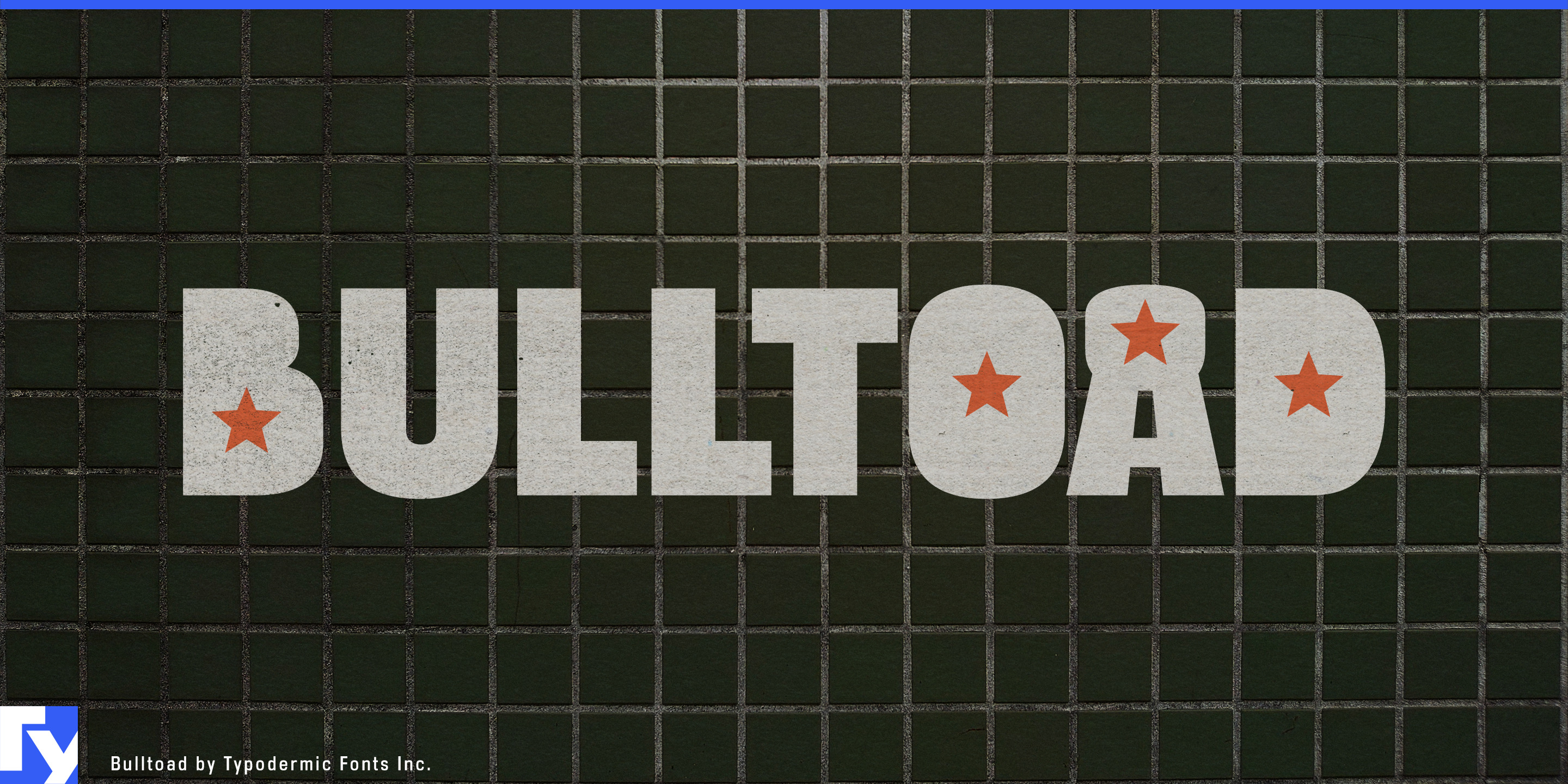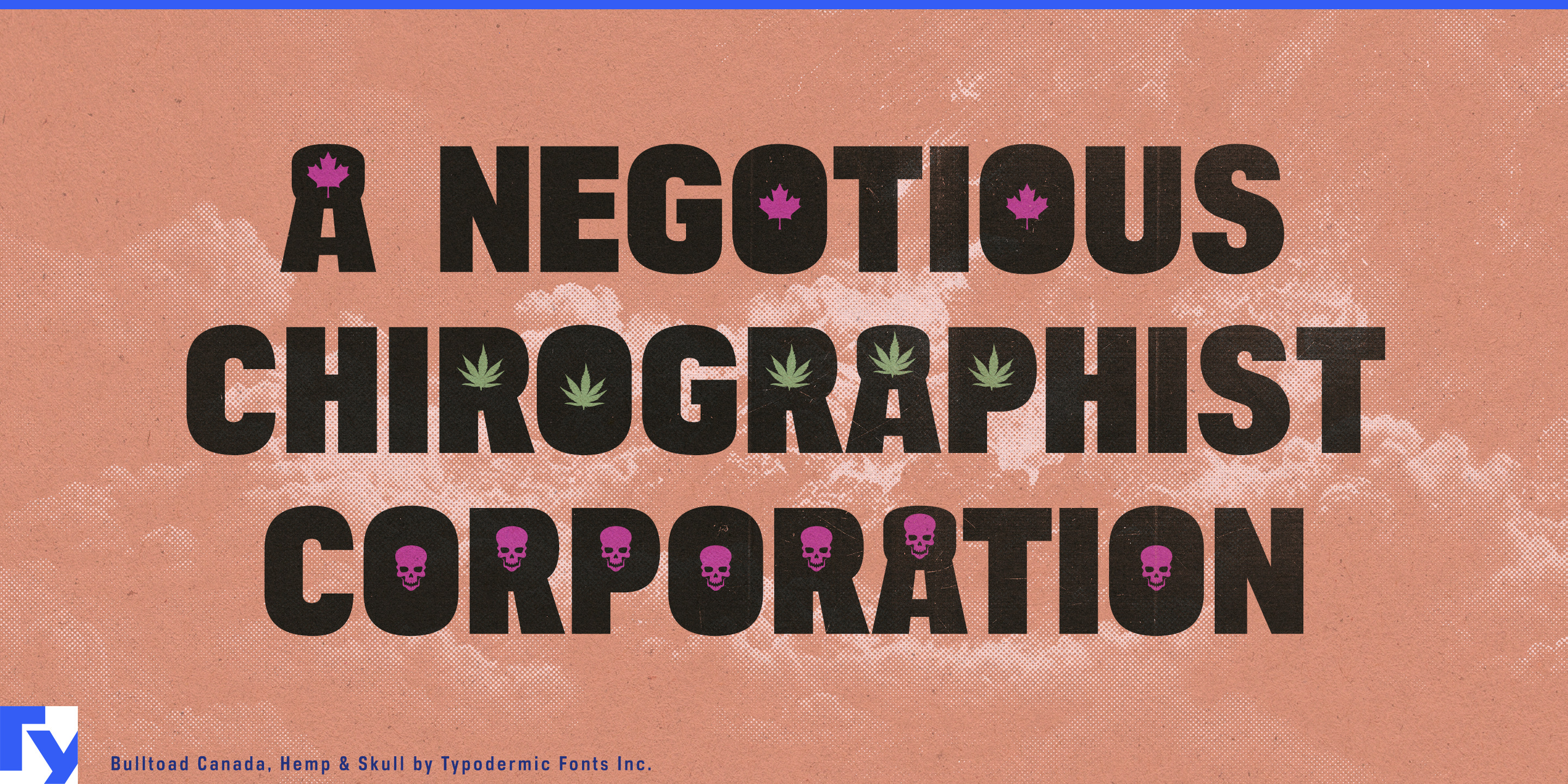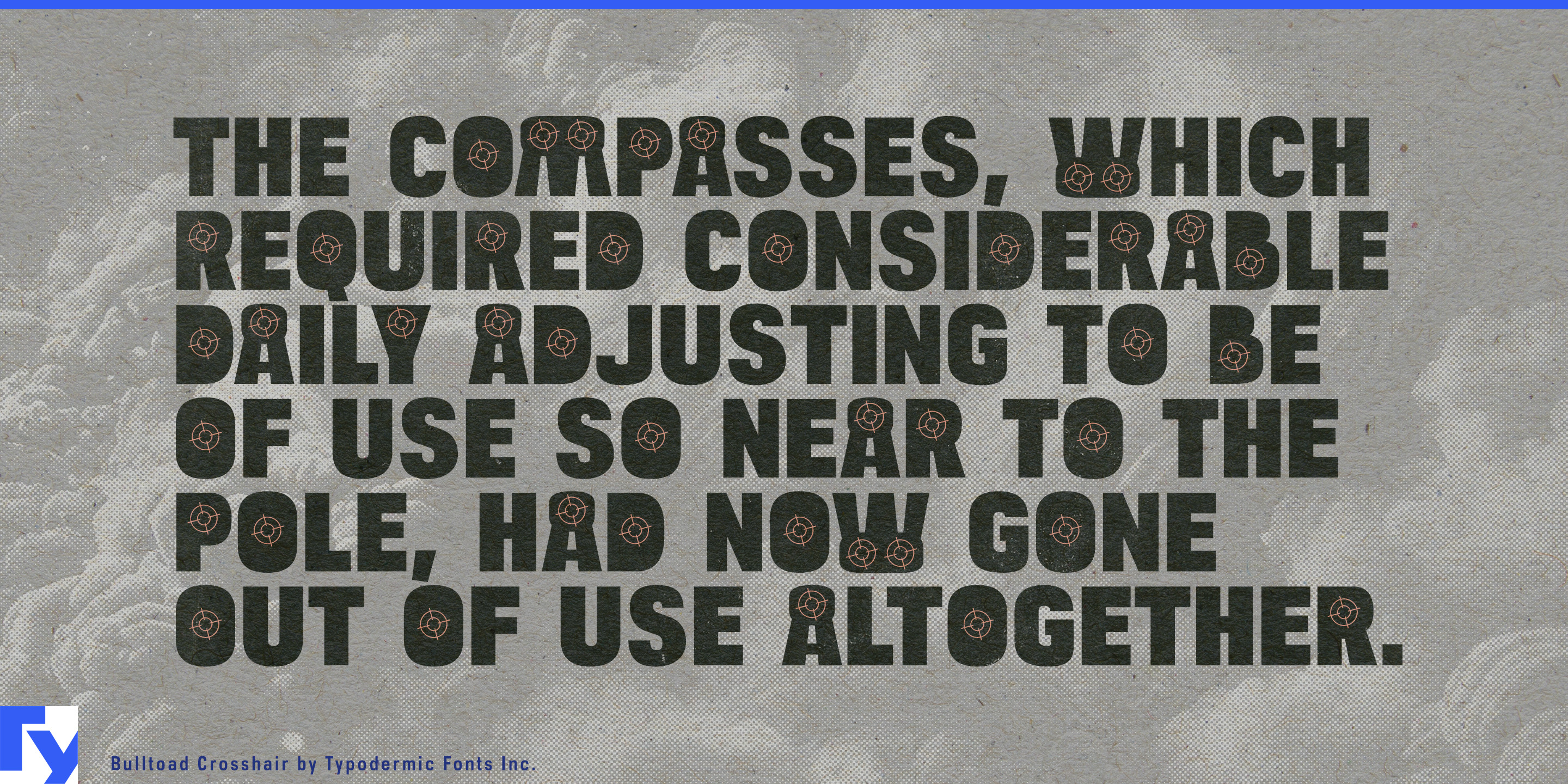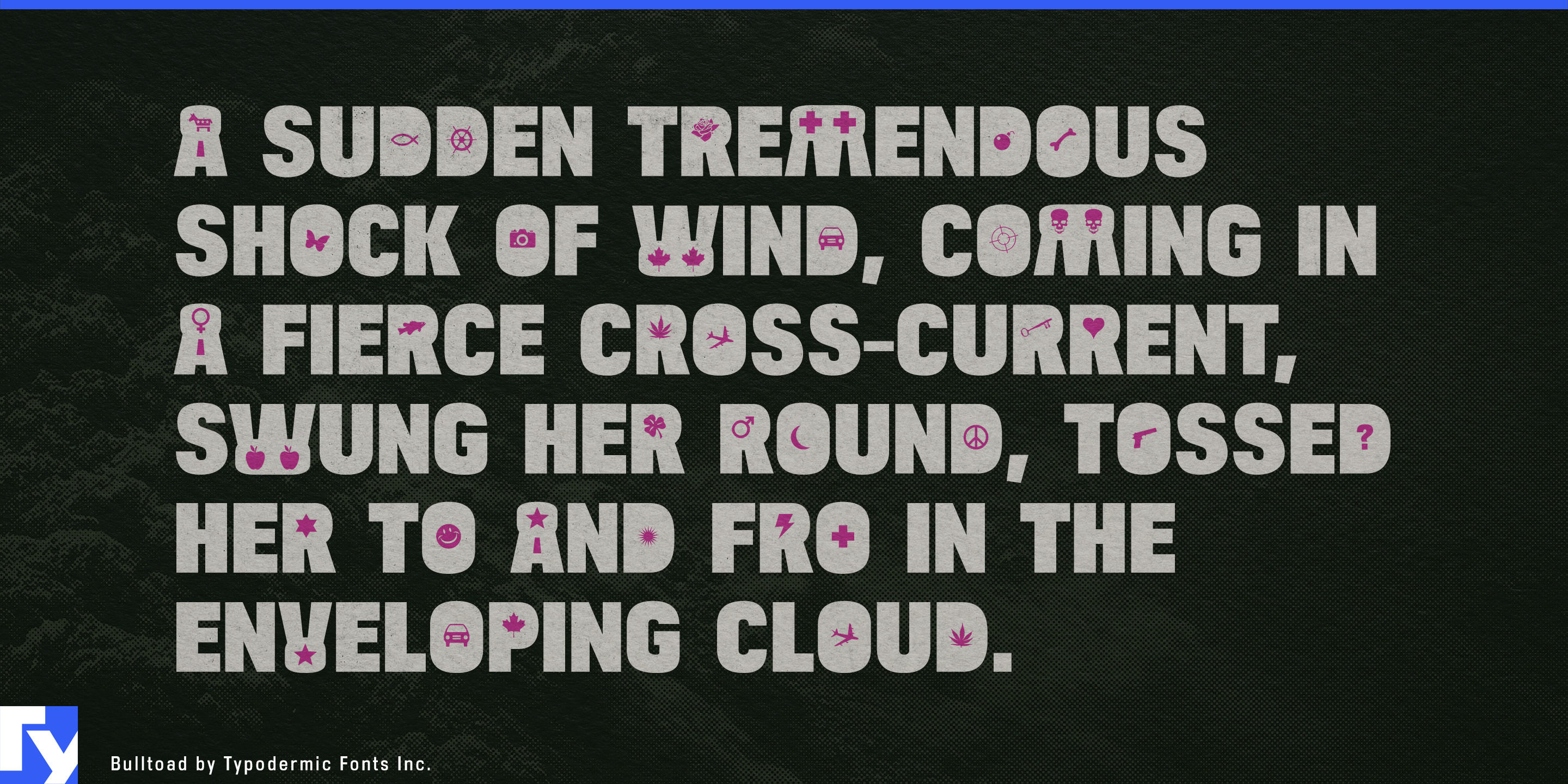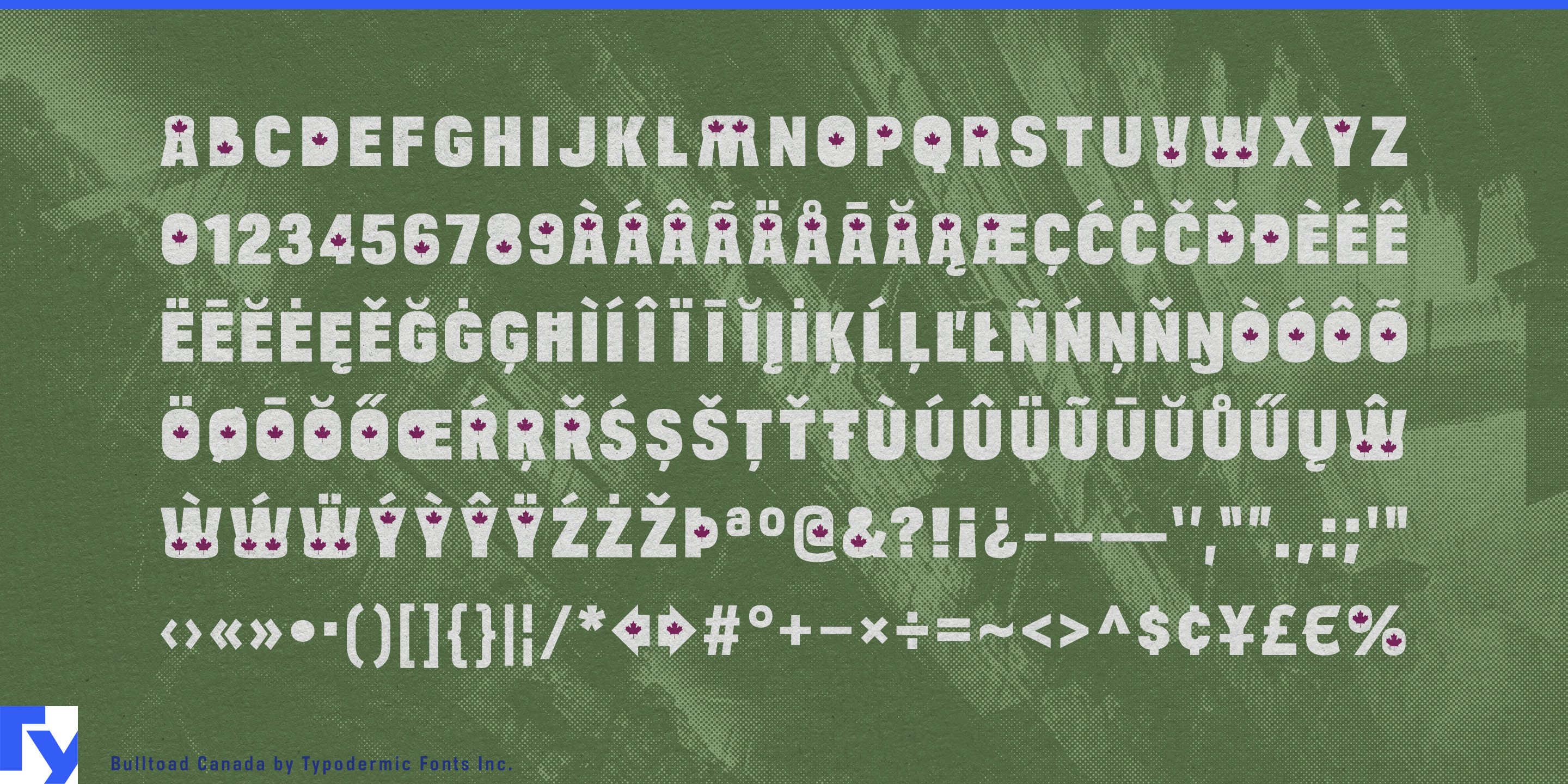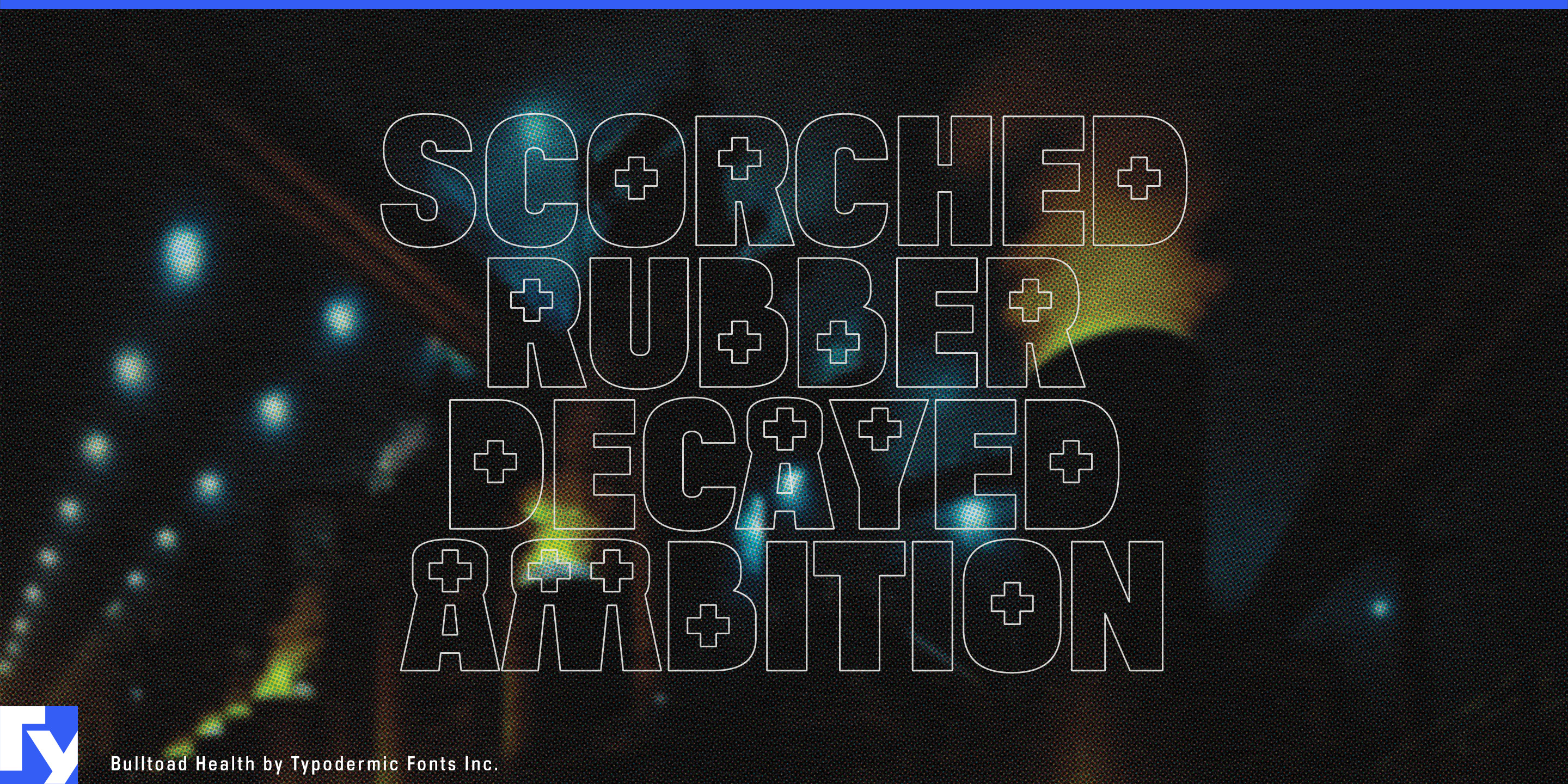
Bulltoad
Editorial systems often have to distinguish dozens of subjects without fragmenting into dozens of visual identities. One article is about transportation, the next about health, food, politics, photography, science, or culture; each topic needs a recognizable cue, but commissioning a new badge, icon treatment, or illustration every time can turn a simple headline system into a production problem. Bulltoad takes a blunt approach: dozens of themed styles place different symbols directly inside the letterforms, letting the subject marker become part of the typography.
That makes Bulltoad especially useful for multi-topic editorial media. News magazines, culture sites, documentary series, current-affairs podcasts, educational media brands, explainer channels, institutional publications, and branded editorial studios can assign different styles to recurring subjects while keeping the same underlying headline voice. Feature openers, section labels, newsletter banners, social cards, podcast episode graphics, documentary chapter titles, and explainer-video headlines can all change topic without changing systems.
The literal nature of the symbols is part of the appeal. Transport, photography, food, health, politics, religion, science, and other subjects can each receive an immediate visual cue. Bulltoad works best when the topic marker is meant to be obvious, graphic, and a little deadpan.
Museums and exhibitions can use the same structure across large programs. Science museums, transport museums, history exhibitions, cultural institutions, visitor centers, and educational shows often divide content into many themes that need to remain visibly related. Bulltoad can handle zone titles, exhibit-section headings, activity cards, promotional graphics, merchandise, and digital displays while changing the internal symbol to match the subject.
Escape rooms and immersive attractions provide a more playful setting. Puzzle venues, challenge arcades, interactive mysteries, and team-building experiences need mission titles, briefing screens, clue envelopes, puzzle cards, warning labels, score graphics, room names, and merchandise. Bulltoad’s themed styles can keep those elements related while signaling keys, questions, danger, targets, night scenes, stars, electricity, and other recurring concepts.
Its more provocative styles can also suit satire, commentary, and issue-driven graphics, where literal symbolism becomes part of the joke. Bulltoad is not dozens of unrelated novelty fonts; it is one topical headline system with dozens of built-in ways to mark what the subject is.